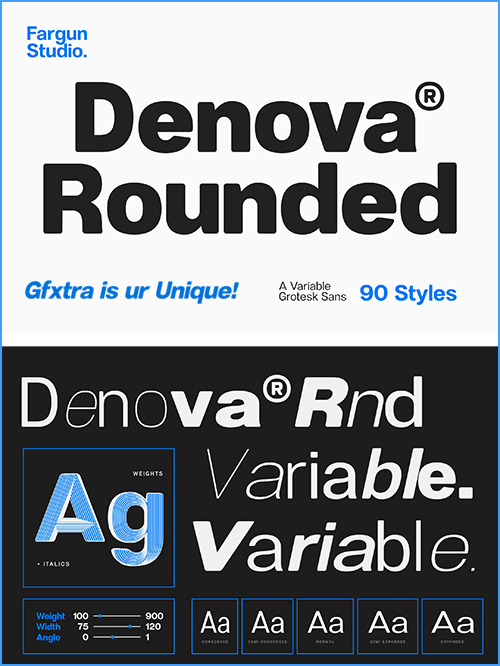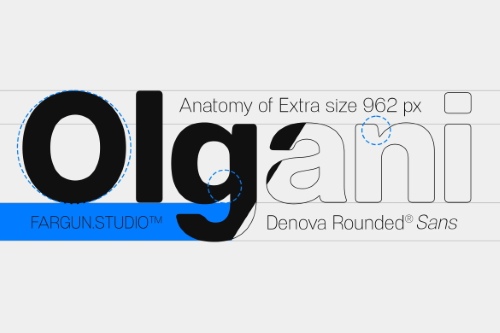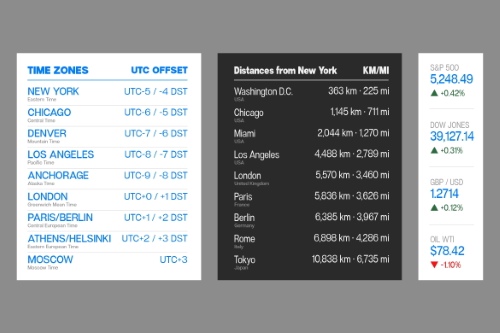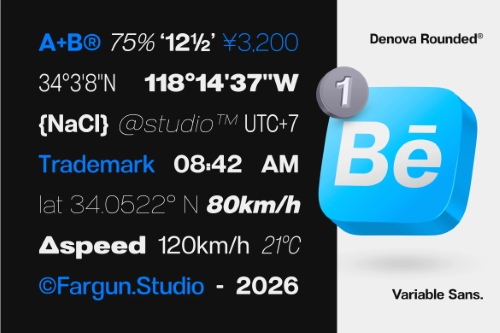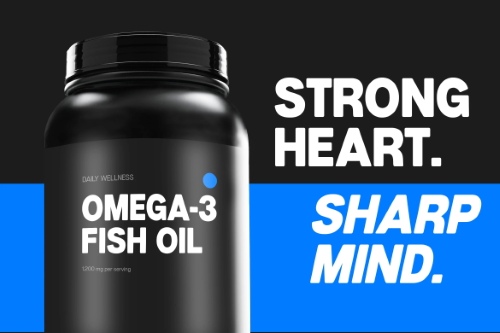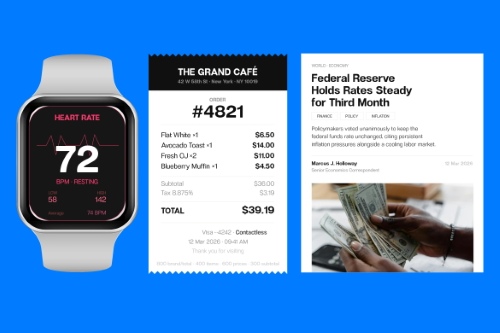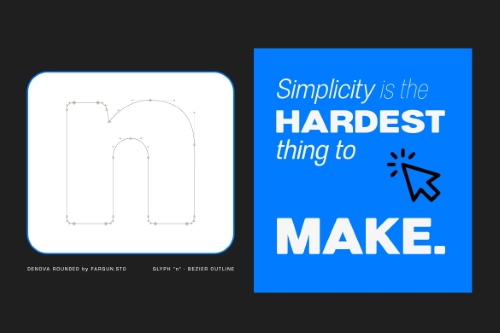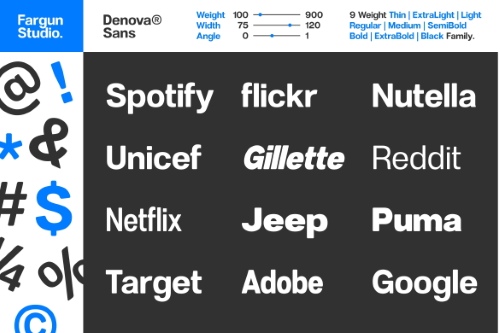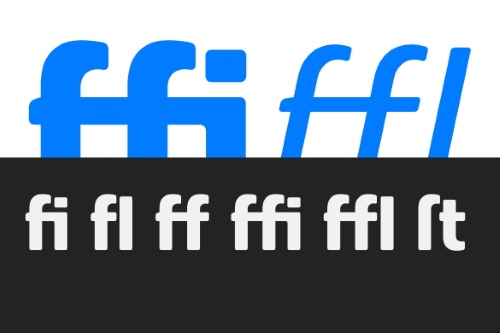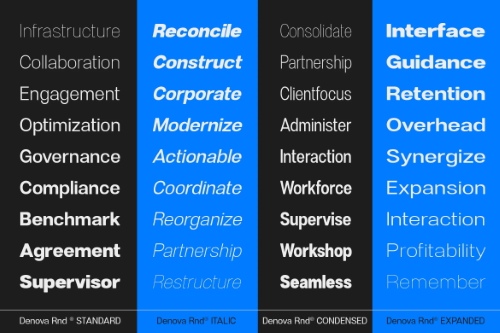
- Denova Rounded is a modern variable grotesk sans serif that combines bold geometric structure with smooth rounded terminals, creating a friendly yet confident personality. Designed for maximum versatility, it delivers exceptional clarity across everything from bold headlines to clean user interfaces. Its balanced proportions, open letterforms, and contemporary aesthetics make it an excellent choice for branding, editorial design, packaging, advertising, websites, mobile apps, and corporate identity. Built as a complete variable font family, Denova Rounded offers an extensive range of weights and widths, giving designers the freedom to create consistent visual systems while maintaining a warm, approachable appearance. Whether you're crafting a minimalist brand or a bold modern campaign, Denova Rounded adapts effortlessly to every creative challenge.